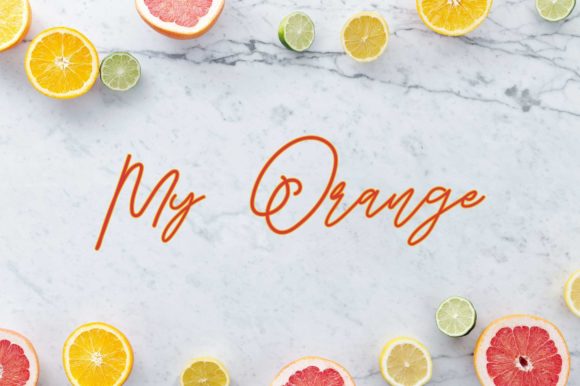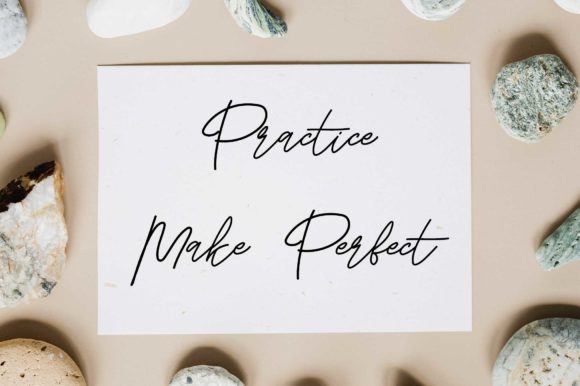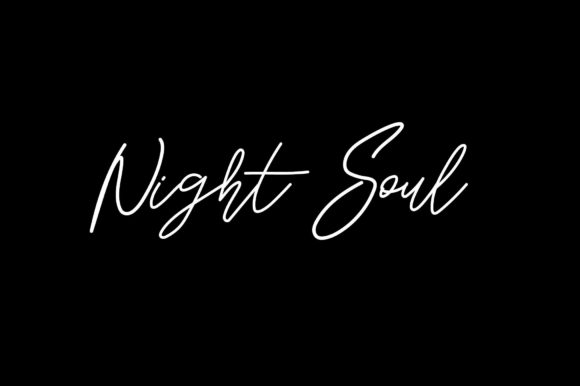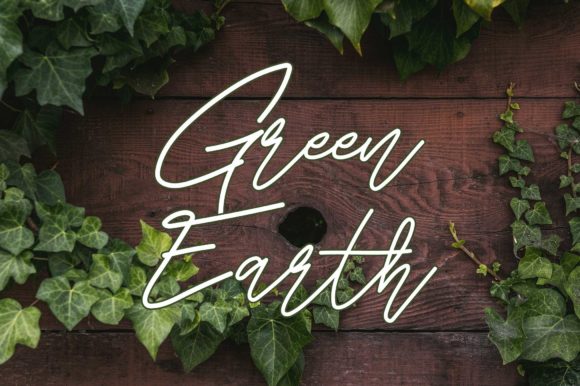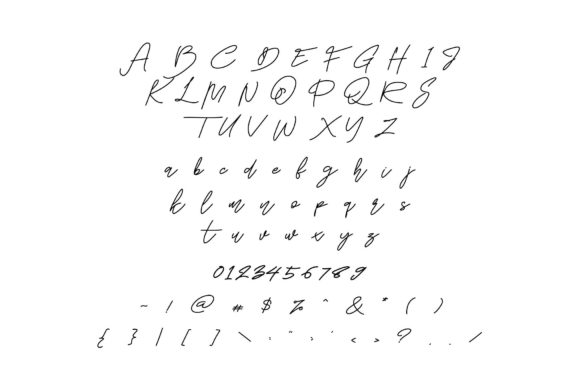
Fathers Day Font
About Fathers Day Font
Fathers Day is a unique script font with fashionable, modern and cool curves. Suitable to a wide variety of designs due to its neat and simple style, this font has the potential to become your favorite go-to font, no matter the occasion!